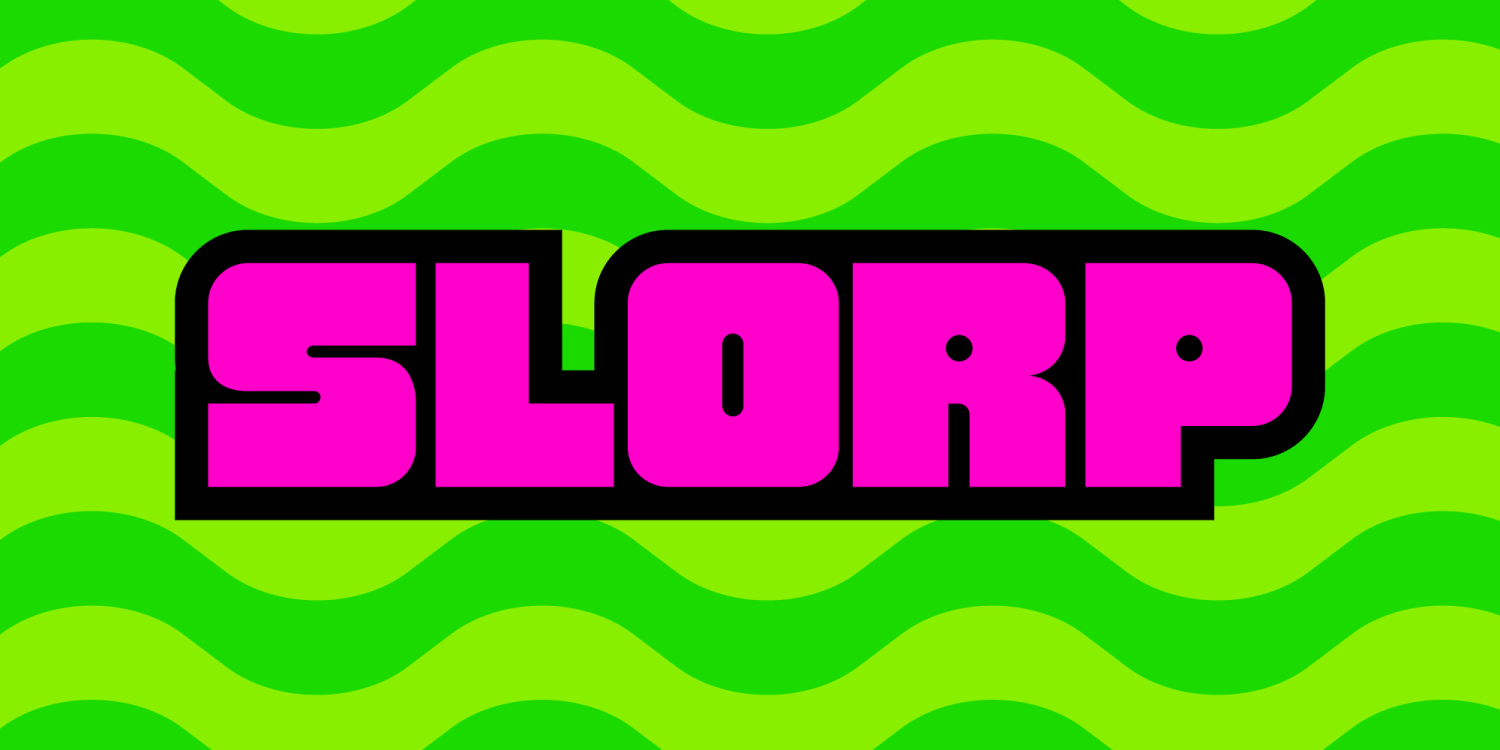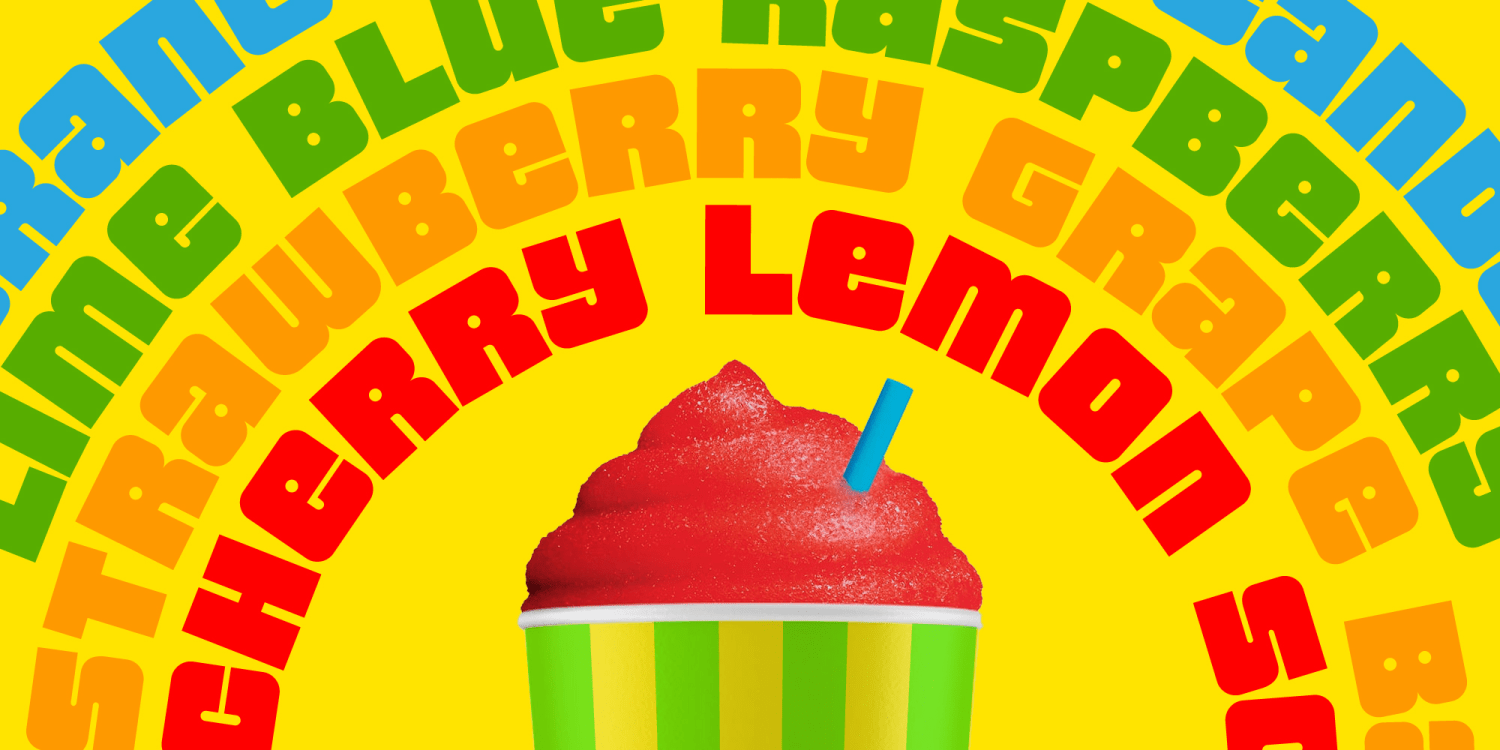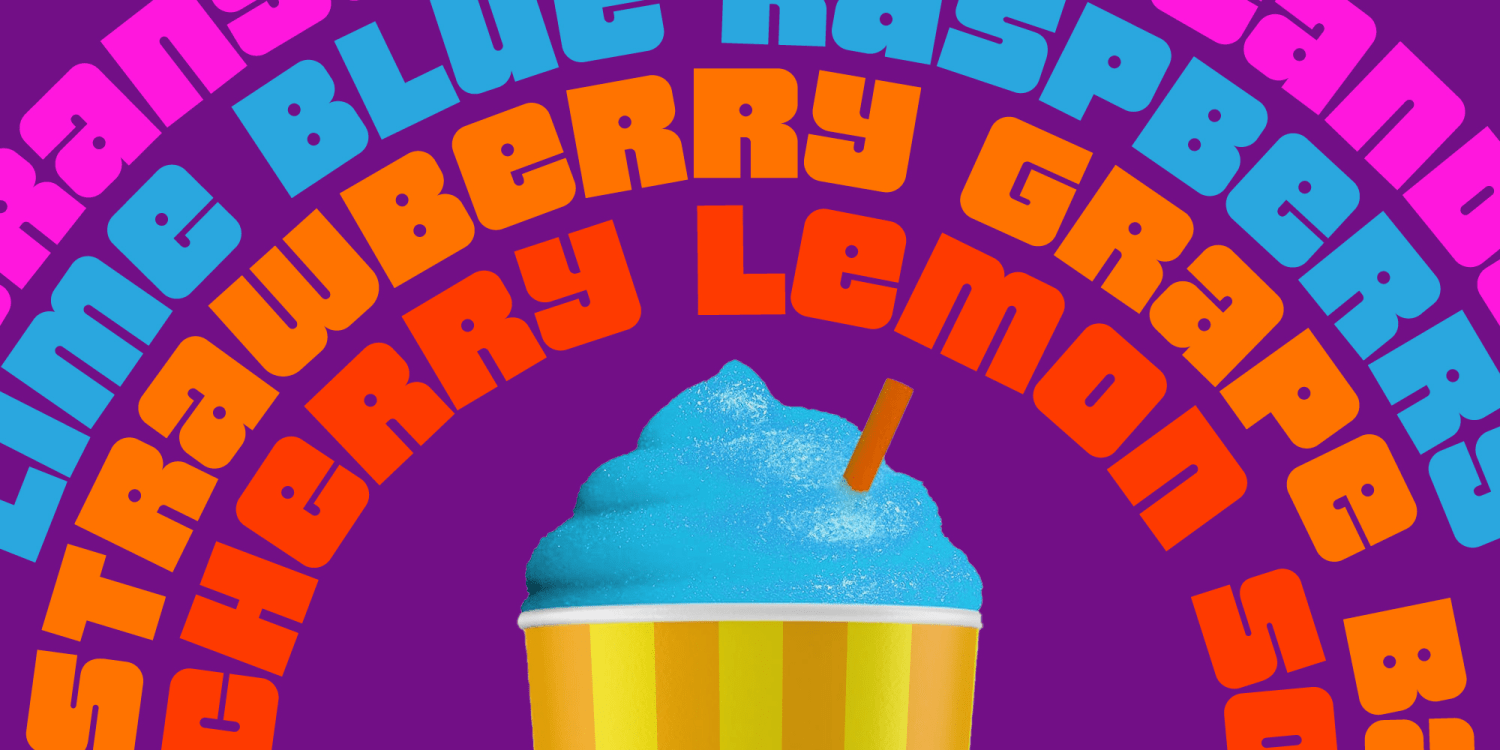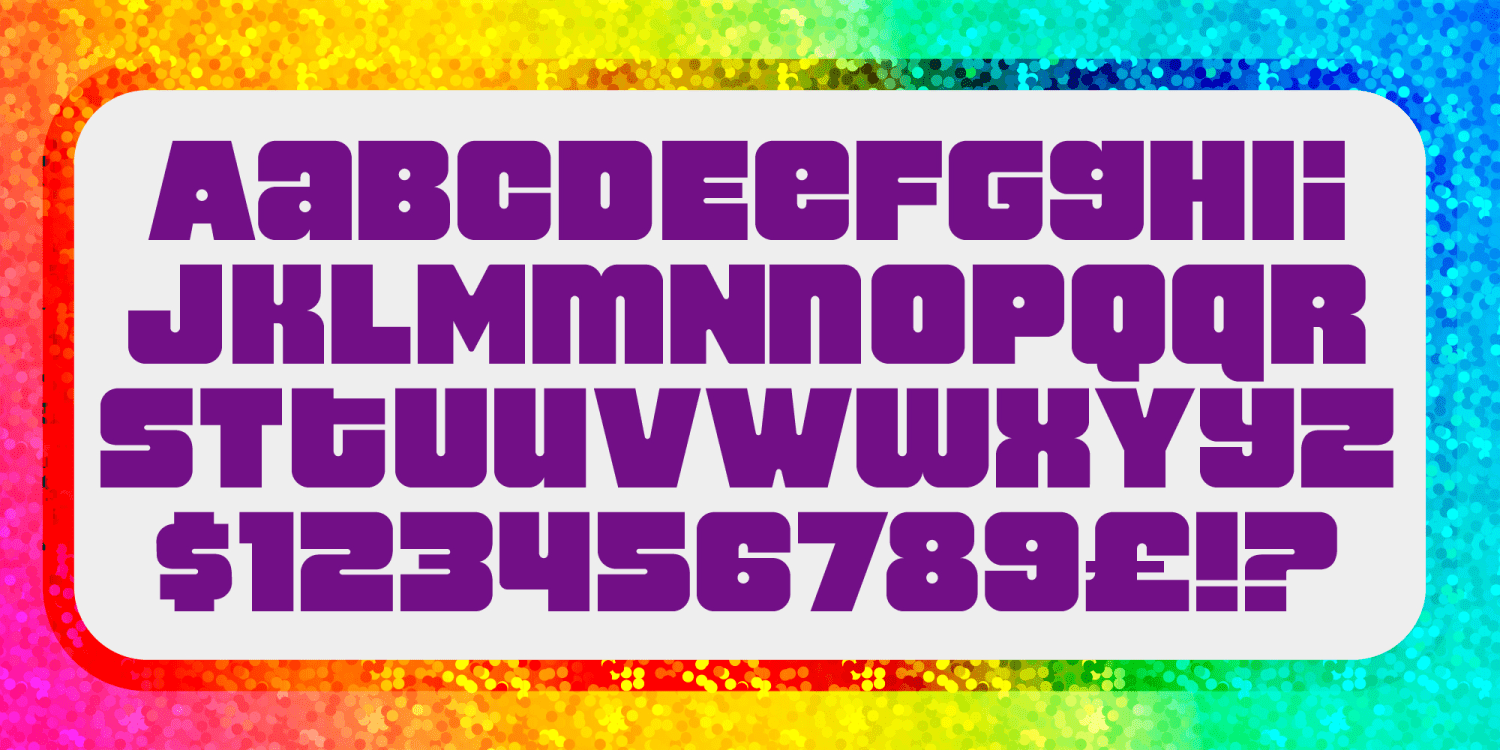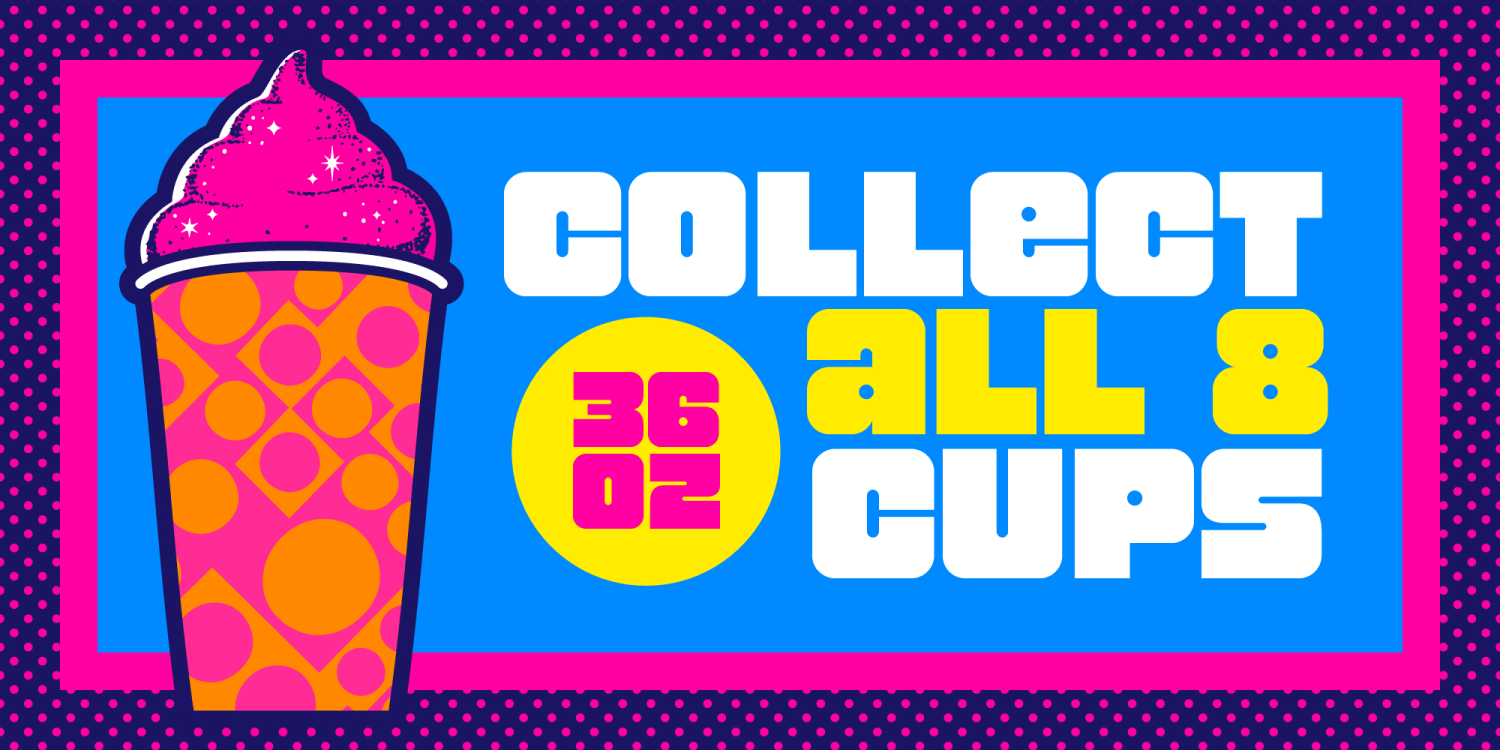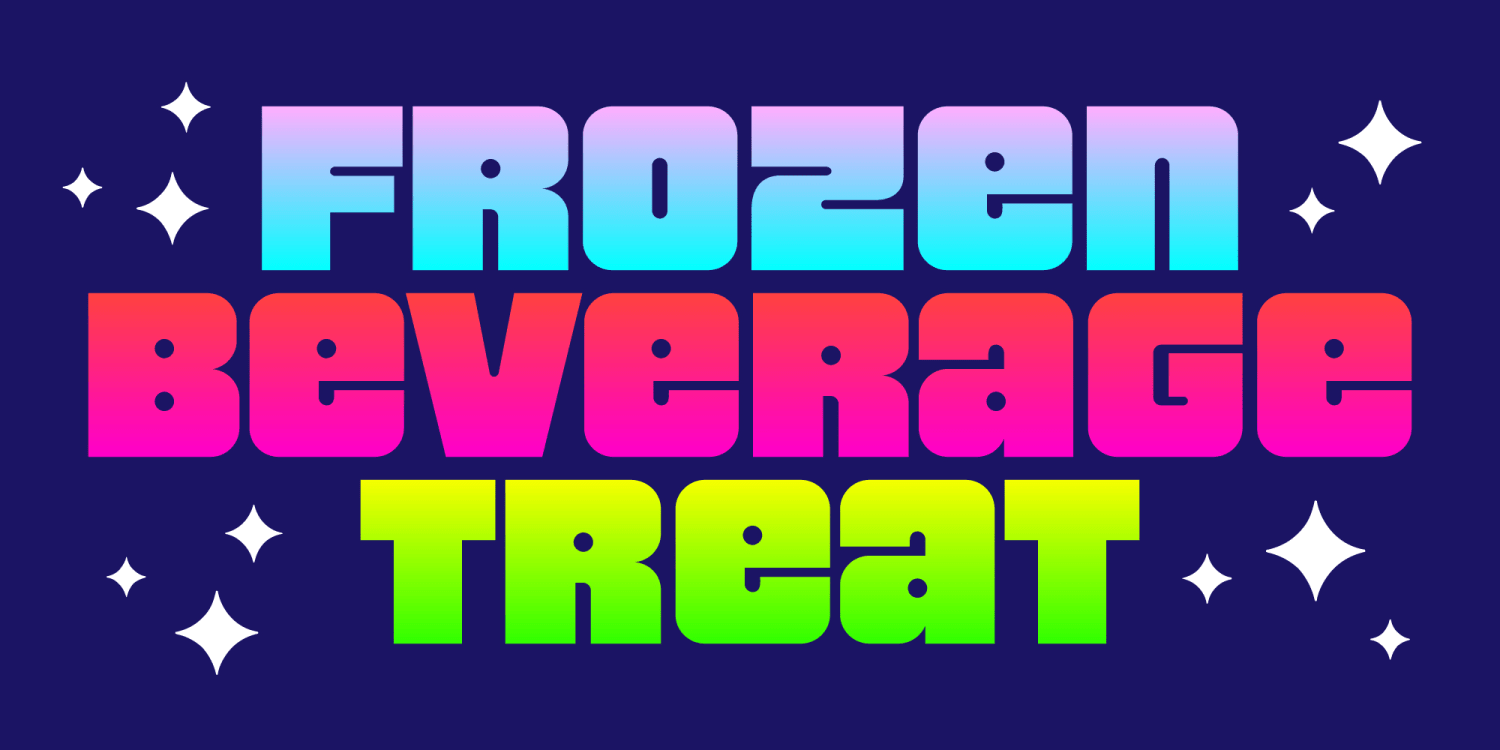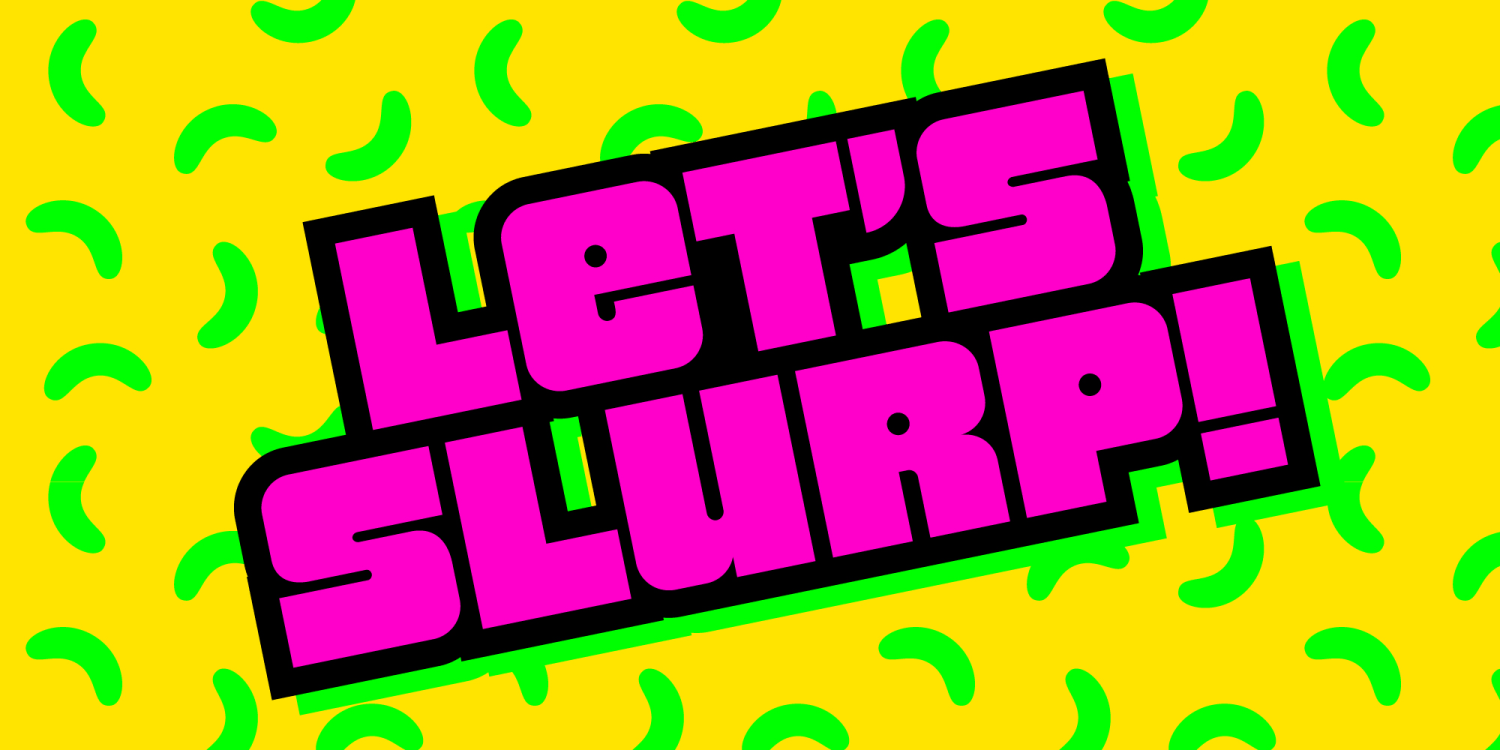
Slorp
Slorp is a chunky typeface bursting with 80s nostalgia! Inspired by vintage slushie branding, its bold, blocky forms bring a brain-freezing blast of fun to any design.
The Slorp font family includes 223 glyphs.